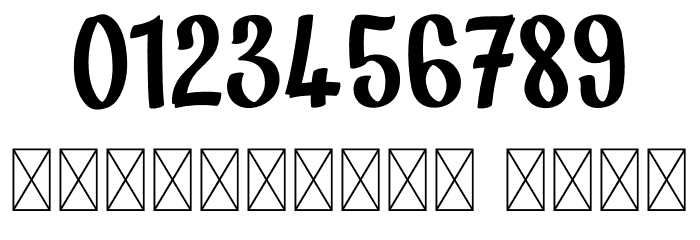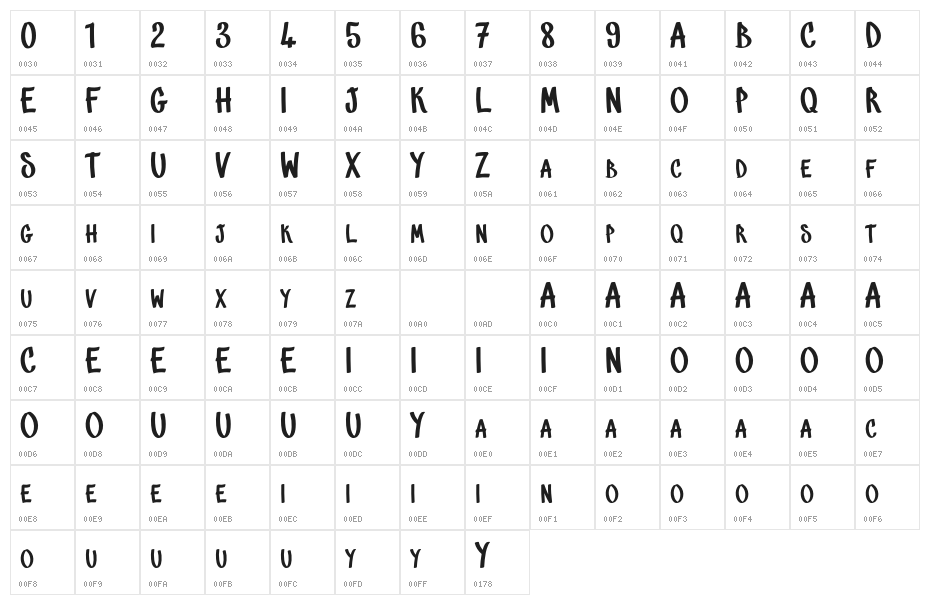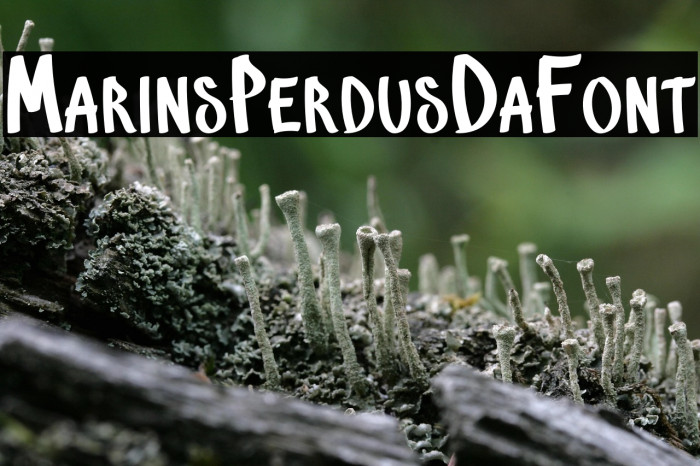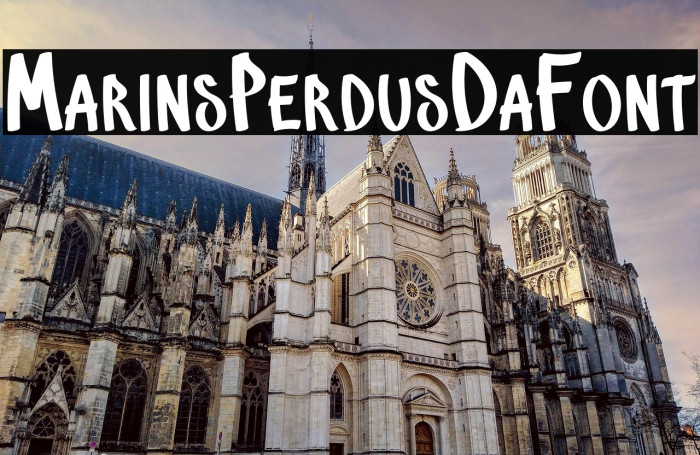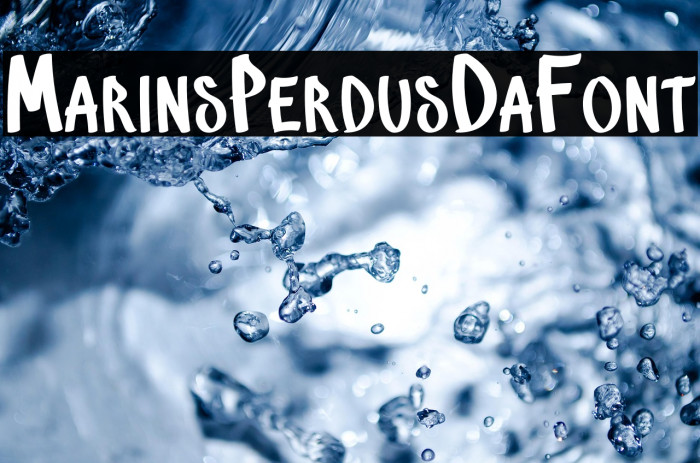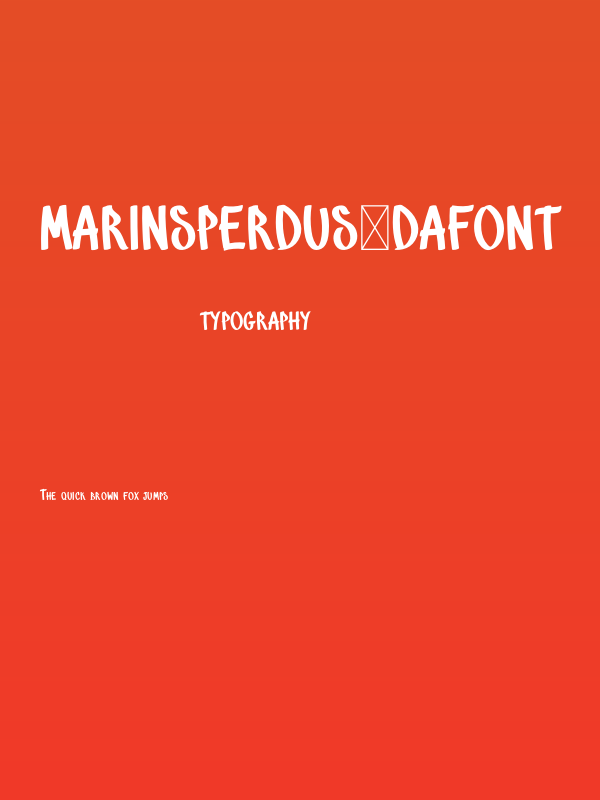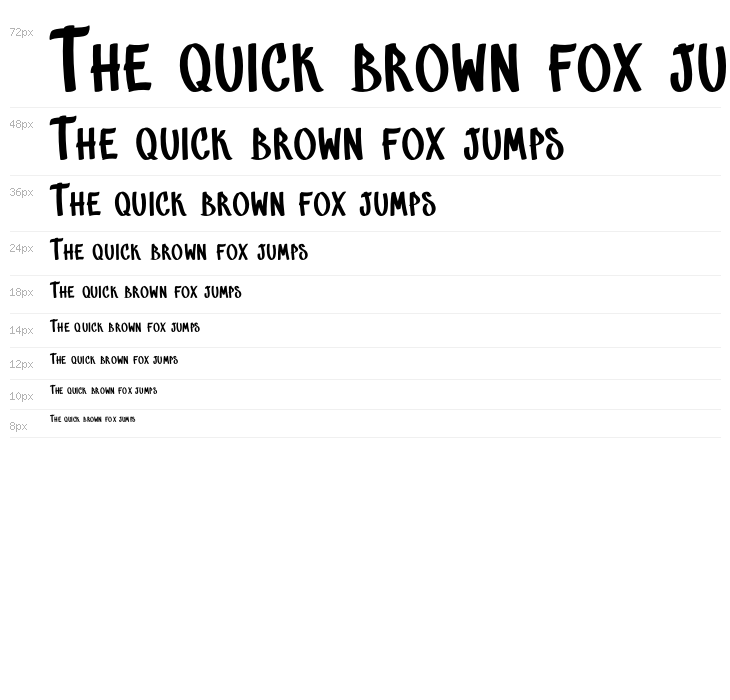
MarinsPerdus-DaFont Font
MarinsPerdus-DaFont Description
This font features a bold and playful style with a handwritten appearance. The characters are slightly irregular, giving it a casual and friendly feel. The uppercase and lowercase letters maintain a consistent weight, contributing to its boldness. The numbers are equally bold and maintain the playful aesthetic. The font lacks special characters, focusing on alphanumeric characters. Its design is suitable for projects that require a personal touch or a fun, informal vibe. The strokes are consistent in thickness, providing a uniform look across all characters.
| Overall Style | Playful, Casual |
| Proposed Projects | Ideal for greeting cards, children's books, playful branding, and casual invitations. |